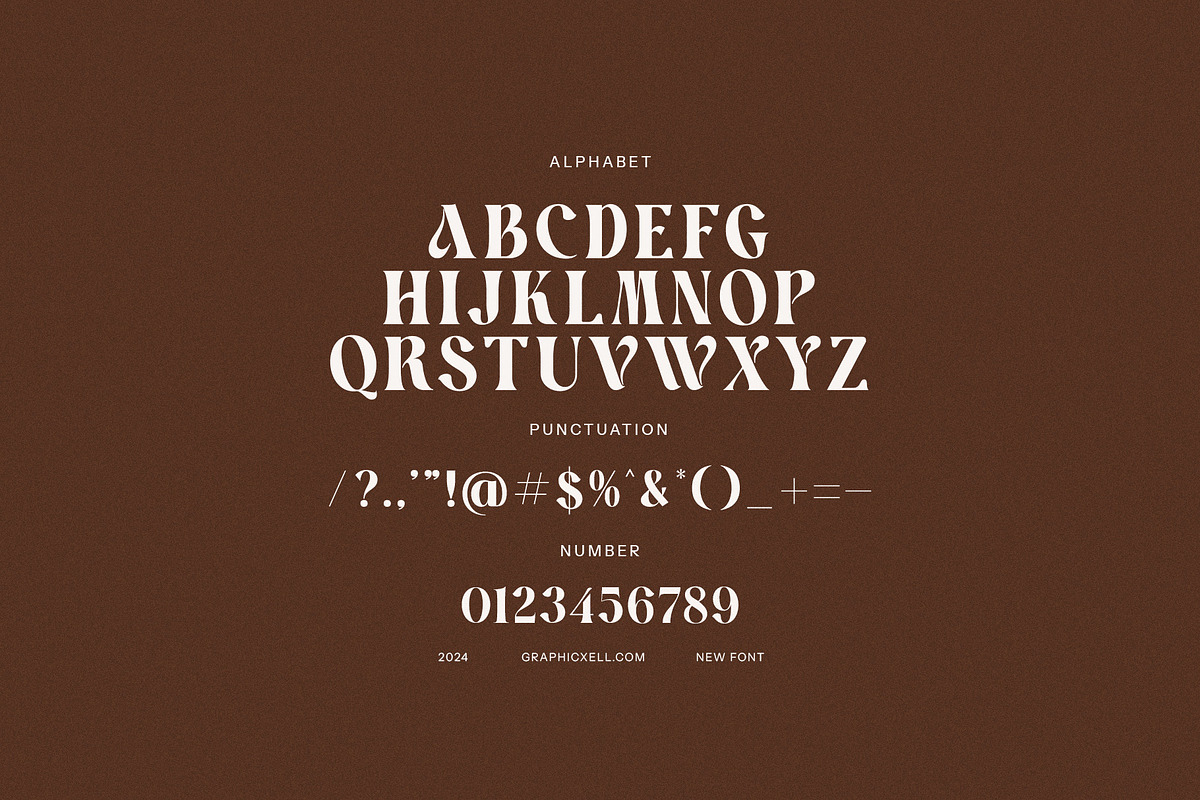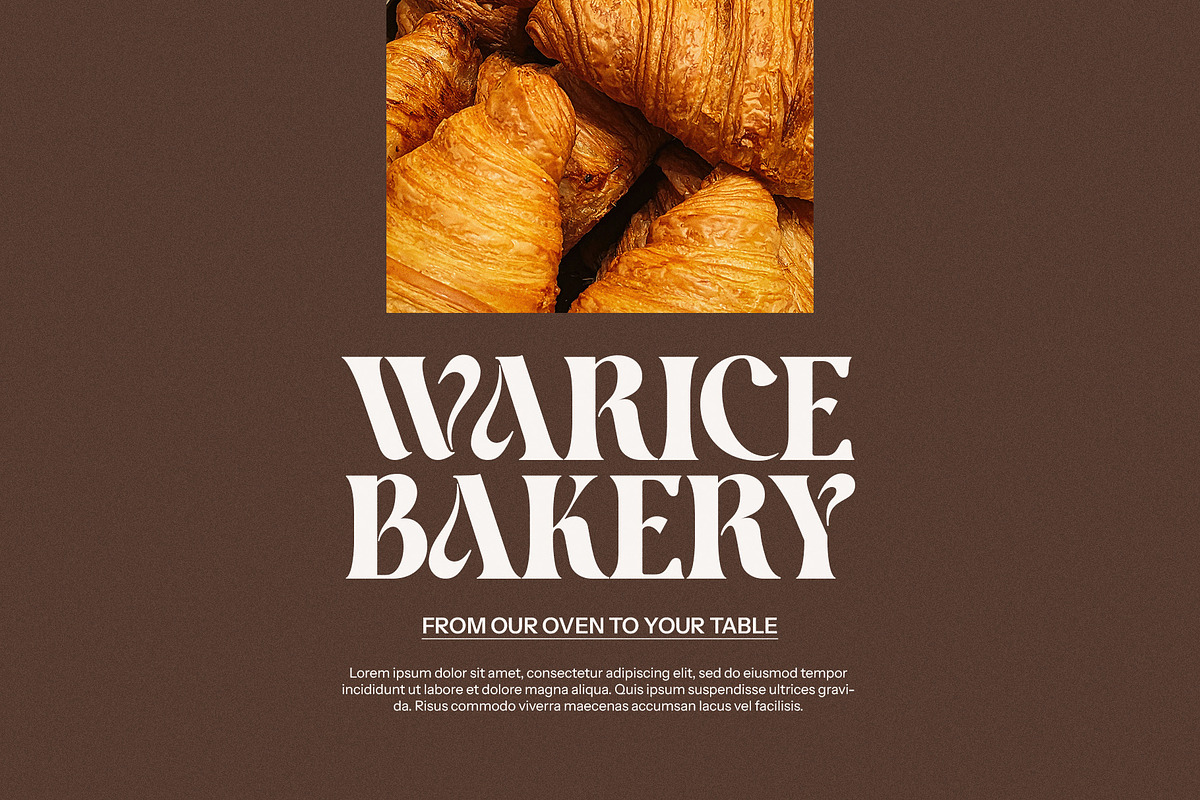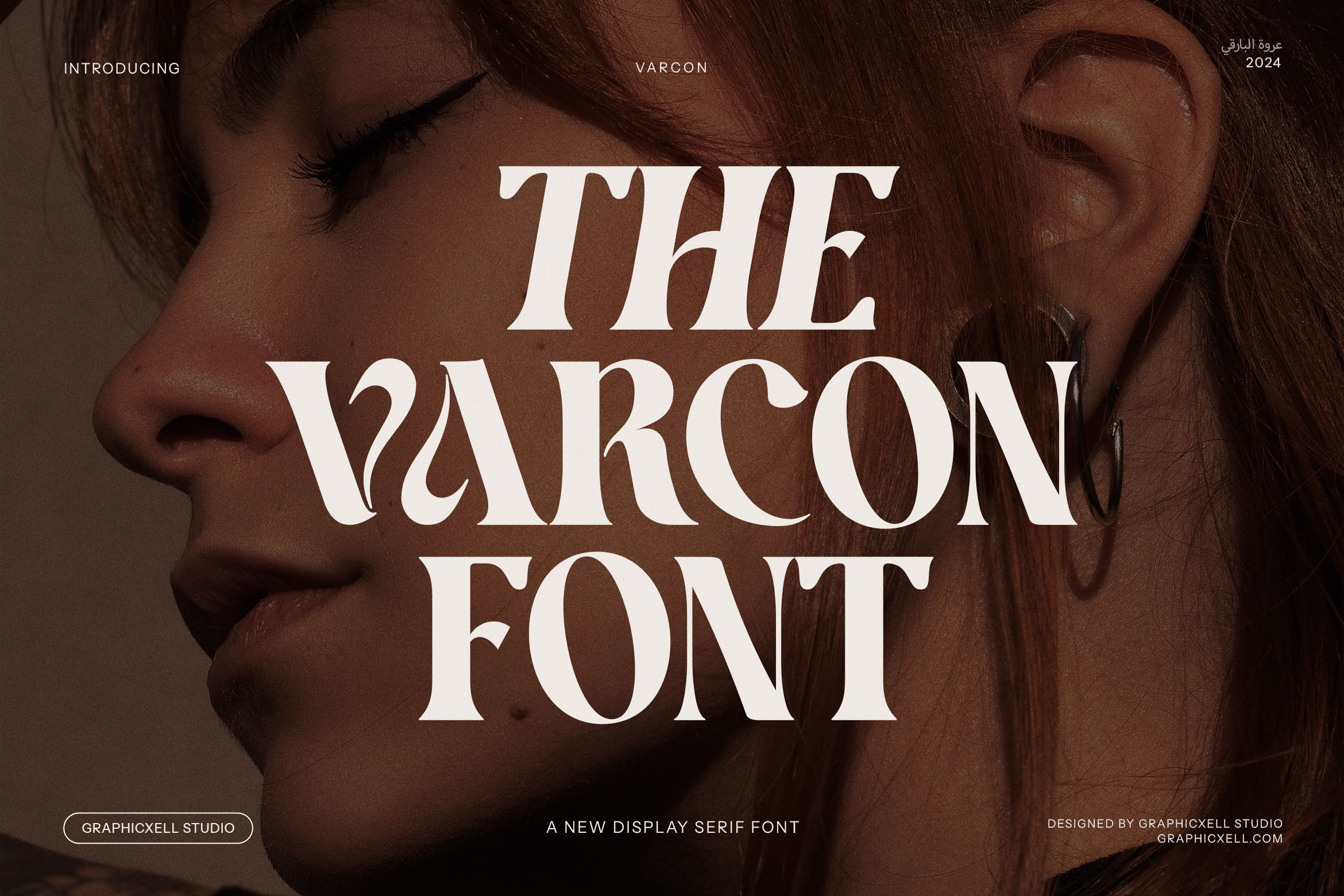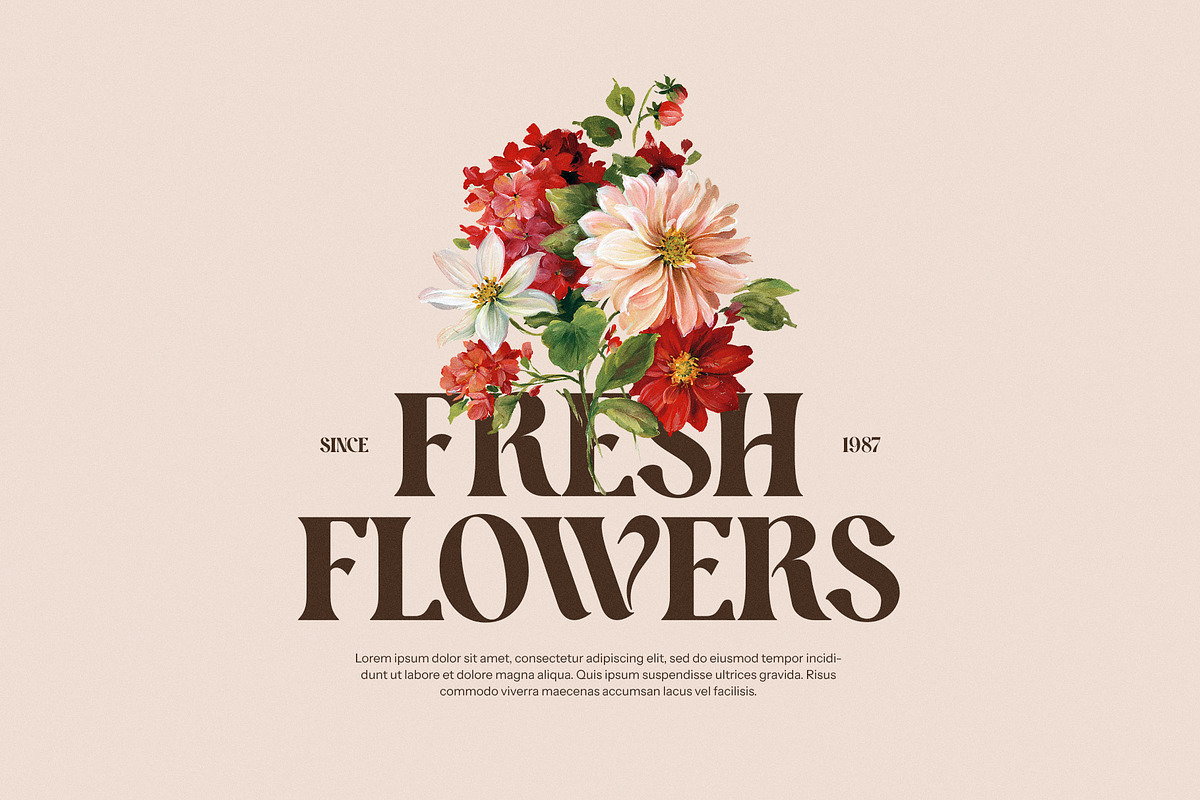
Varcon Elegant Serif Font
Varcon Elegant Serif Font is a stunning typeface that combines modern sophistication with timeless charm. Its beautifully designed letterforms, featuring refined serifs and smooth curves, exude elegance and individuality. Whether you’re crafting bold headlines or intricate text designs, Varcon stands out as a versatile and stylish choice, perfect for a wide range of creative projects.
This font’s unique character makes it ideal for professional logos, branding, and identity designs, giving your work a distinctive and memorable edge. It shines in editorial layouts, magazines, and website headers, adding a touch of class to any visual presentation. Varcon’s adaptability extends to product packaging, advertisements, boutique branding, and food-related designs, where its clean and polished aesthetic creates a lasting impression.
Designed with both functionality and beauty in mind, Varcon is perfect for digital and print applications. Its readability and balanced proportions ensure it performs flawlessly in any context, whether used for display typography or longer text passages.
Pair Varcon with minimalist design elements to emphasize its modern appeal, or combine it with complementary fonts for a layered and dynamic effect. Its timeless elegance and contemporary style make it a must-have for designers looking to elevate their projects with a font that effortlessly captures attention.
Varcon Elegant Serif Font isn’t just a typeface; it’s a statement of creativity and sophistication. Whatever your design needs, Varcon delivers a refined, professional finish that leaves a lasting impression of quality and artistry.